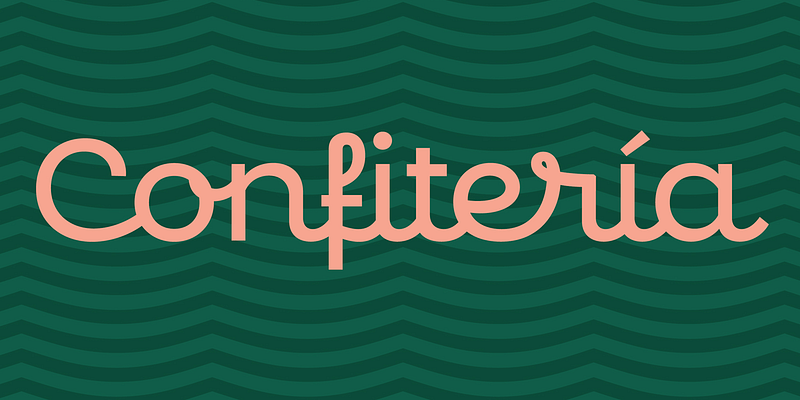
Confiteria Script Font Free Download
Confiteria Script Font Free Download is a beautifully elegant script typeface that brings a touch of sweetness and sophistication to any design. Inspired by classic calligraphy and vintage confectionery packaging, this font is perfect for wedding invitations, bakery branding, luxury packaging, greeting cards, and any project that calls for a romantic, handcrafted feel.
Flowing with delicate curves and graceful ligatures, Confiteria Script Font Free Download captures the essence of refined script typography. Its smooth stroke transitions and ornamental swashes add charm and warmth, making your designs feel both stylish and personal.
Whether you're designing a logo for a boutique, crafting an elegant menu, or creating themed social media graphics, Confiteria Script brings a soft, high-end aesthetic that elevates the overall visual tone. It pairs beautifully with serif or sans-serif fonts for contrast and balance.